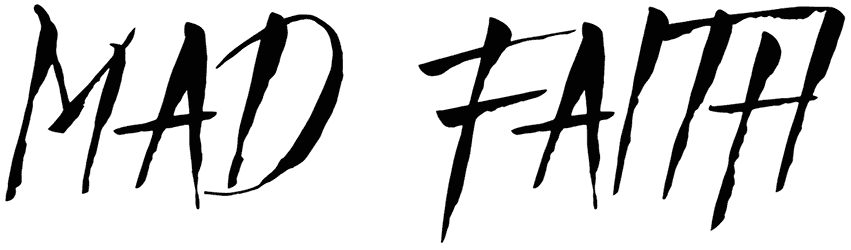
Mad Faith Font
Mad Faith is a new look of script fonts that uses their elegance and narrowness to create a sense of fear. This horror font is designed similarly to the scratch of nails on the wall, which inspires a captive in the clutches of kidnappers.
In addition, an Asian nature can be seen in this font, which adds to its mystery. The absence of small letters and numbers in Mad Faith has made it more common in titles and game headers.